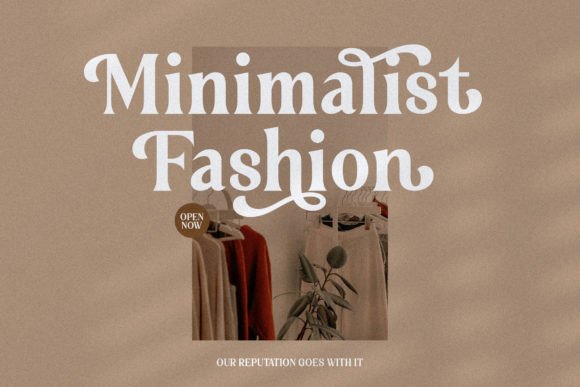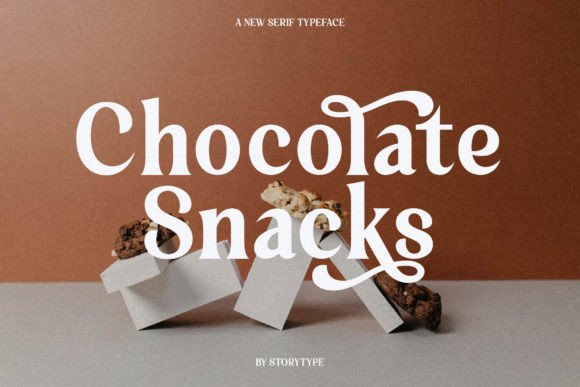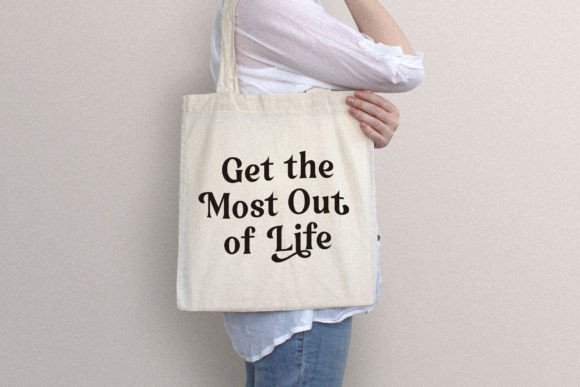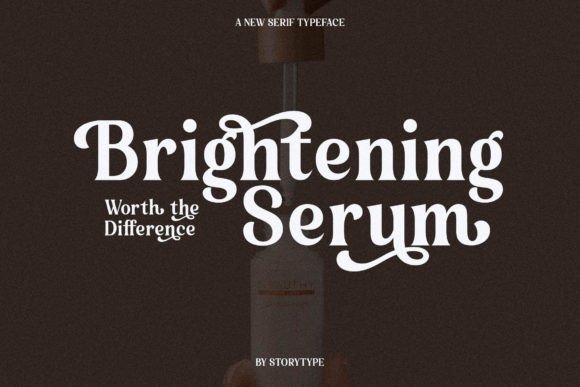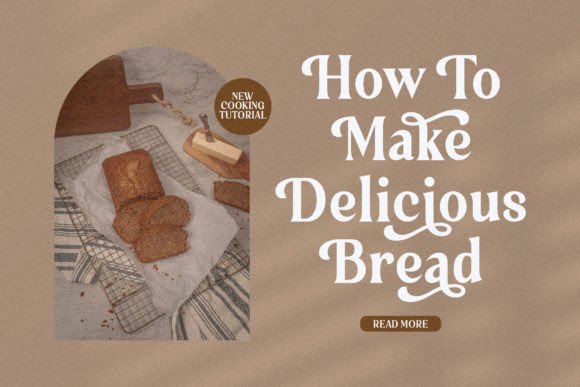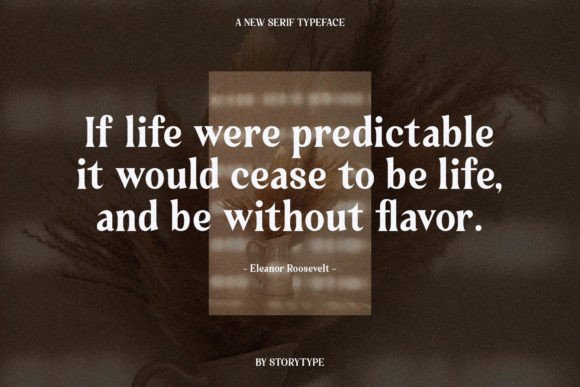
Introduction to Qunaden Font
As you sit at your desk, staring at a blank canvas, the cursor blinks impatiently, begging you to bring your creative vision to life. It’s moments like these that we designers live for – the thrill of the unknown, the rush of excitement as our ideas take shape. And what’s the key to unlocking that magic? The perfect font, of course! For those seeking to elevate their designs to new heights, look no further than the Qunaden Font.
This modern display typeface is a game-changer, perfect for adding an air of elegance and luxury to your next creative project. Whether you’re designing a logo, book title, or magazine cover, the Qunaden Font is sure to make a lasting impression. With its high-quality design and versatility, it’s no wonder this font has become a go-to resource for designers around the world.
Key Features of Qunaden Font
- High-quality, professional font suitable for creative projects, including logos, posters, and other design resources.
- Features a transparent background, allowing for seamless integration with images and other design elements.
- Designed with a unique, elegant style that can add a touch of sophistication to any design project.
- Supports a wide range of languages, making it a versatile design resource for global projects.
Honest Review: Qunaden Font
I recently had the chance to work with the Qunaden Font, and I’m excited to share my thoughts on this design resource.
- The Qunaden Font offers a unique and creative flair to any project, making it perfect for designers looking for a distinctive style.
- The transparent background feature allows for seamless integration with various design elements, giving you more flexibility in your creative project.
- The font is well-suited for both digital and print designs, making it a valuable addition to any design toolbox.
- The Qunaden Font may not be the best choice for complex or large-scale projects, as it can be prone to some spacing issues and kerning problems.
- The font may not be suitable for projects that require a high level of customization, as its design is quite distinctive and may not lend itself to significant modifications.
Overall, I’m impressed with the Qunaden Font’s potential as a design resource. While it may have some limitations, its unique style and free availability make it a valuable addition to any designer’s toolkit.
Use the Qunaden Font with a transparent background for a sleek and modern look. Experiment with different font sizes and colors to add depth and visual interest to your design.
The Qunaden Font is perfect for logos, business cards, and other design projects where a high-quality font is needed. It’s also great for creating presentations, brochures, and other marketing materials.